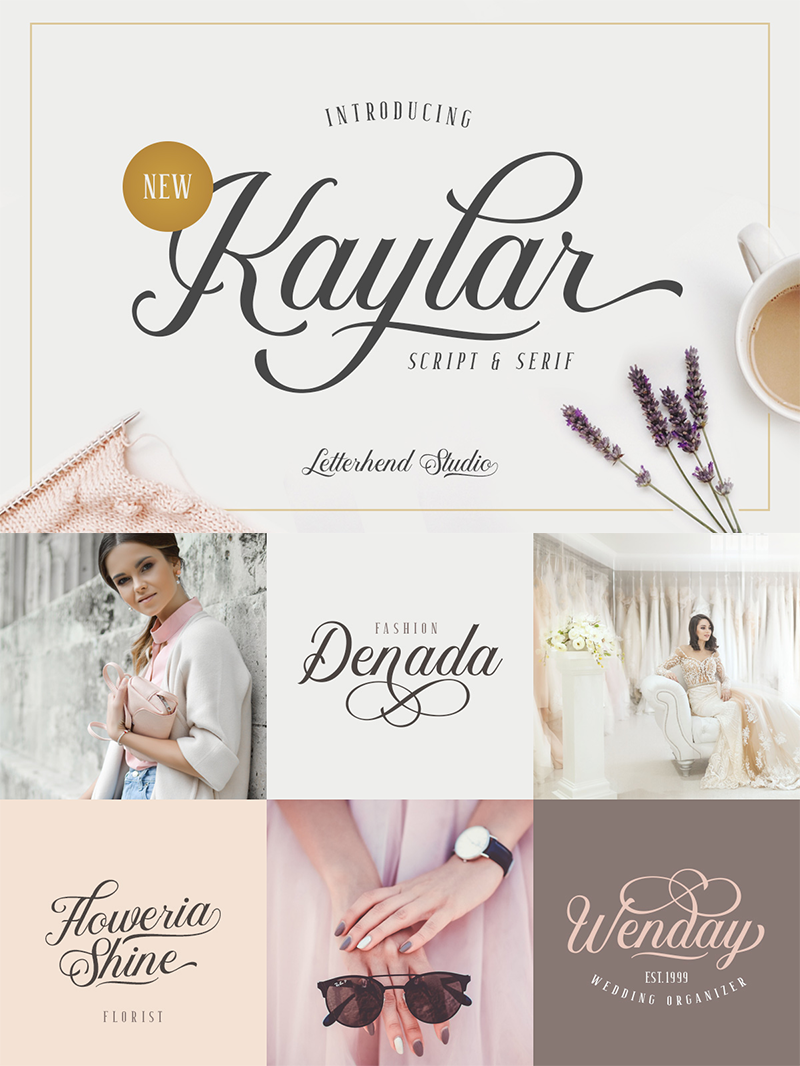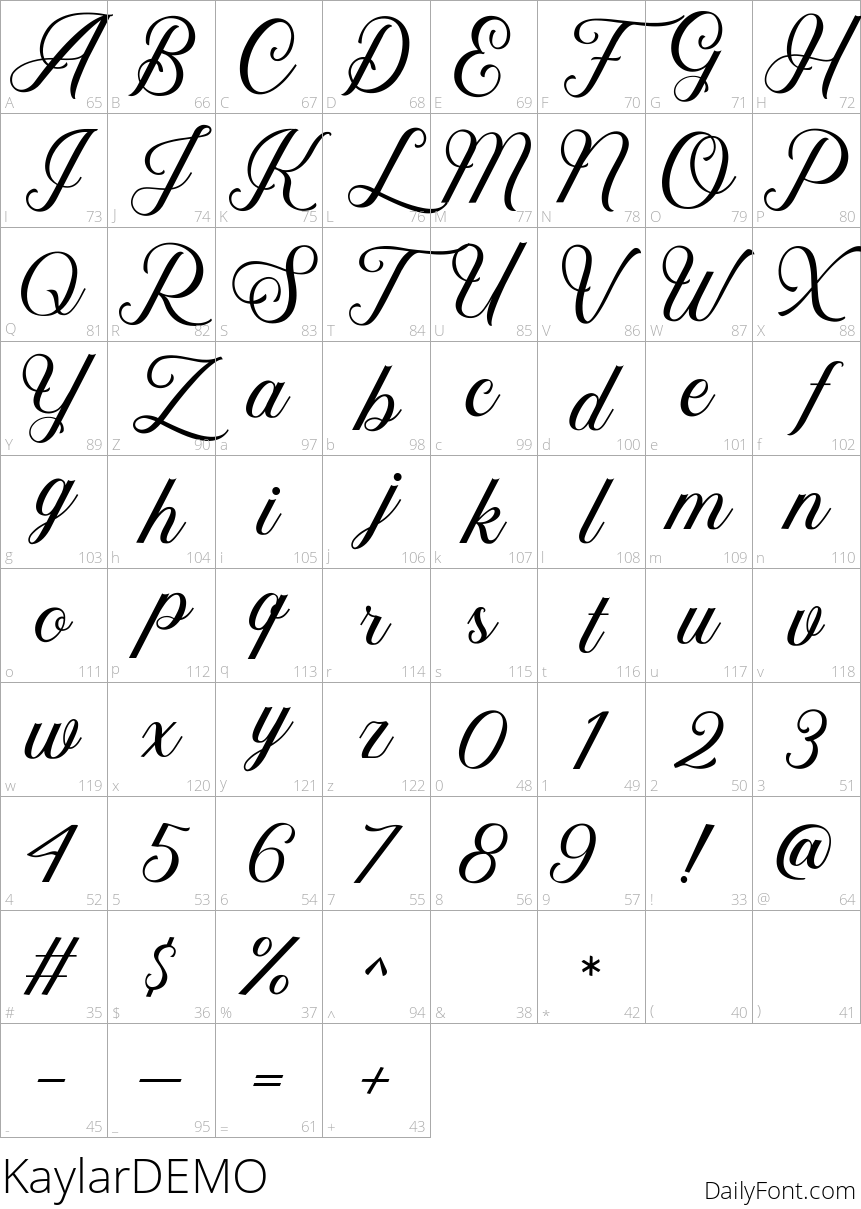
Kaylar
Kaylar Script & Serif is an exquisite typeface pairing that combines the fluid elegance of a script font with the refined structure of a serif font. Designed for those seeking sophistication in their typography, this duo captures a luxury and classy feel that caters to a variety of design projects. Whether you're working on wedding invitations, high-end branding, or chic social media graphics, Kaylar brings your text to life with its elegant curves and clean lines.
One of the standout features of the Kaylar typeface is its unique OpenType capabilities, which allow users to seamlessly incorporate swash ornaments into their designs. This functionality not only elevates the aesthetic of your typography but also provides versatility across different applications. With its stylish appearance and innovative features, Kaylar Script & Serif is the perfect choice for designers looking to leave a lasting impression.